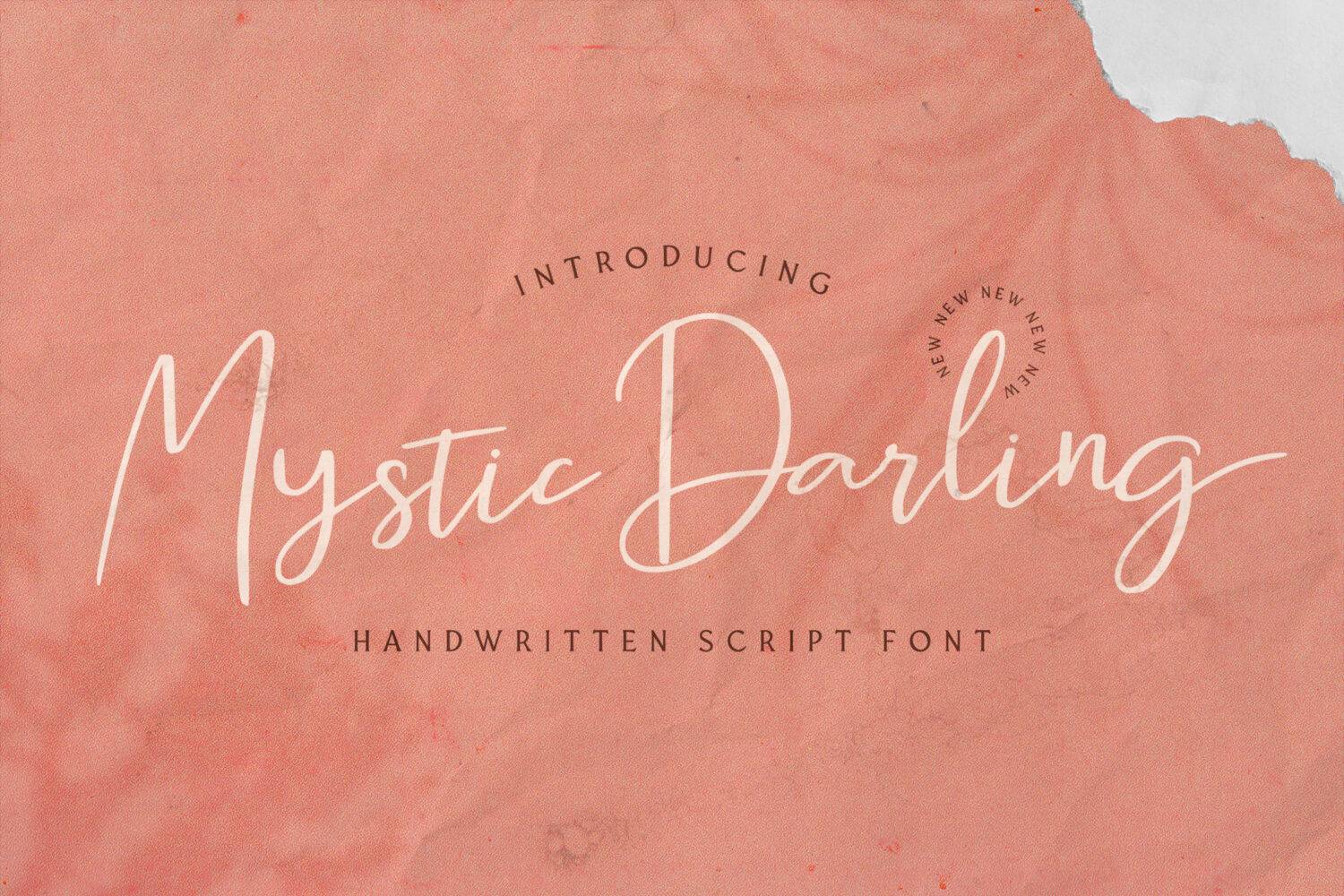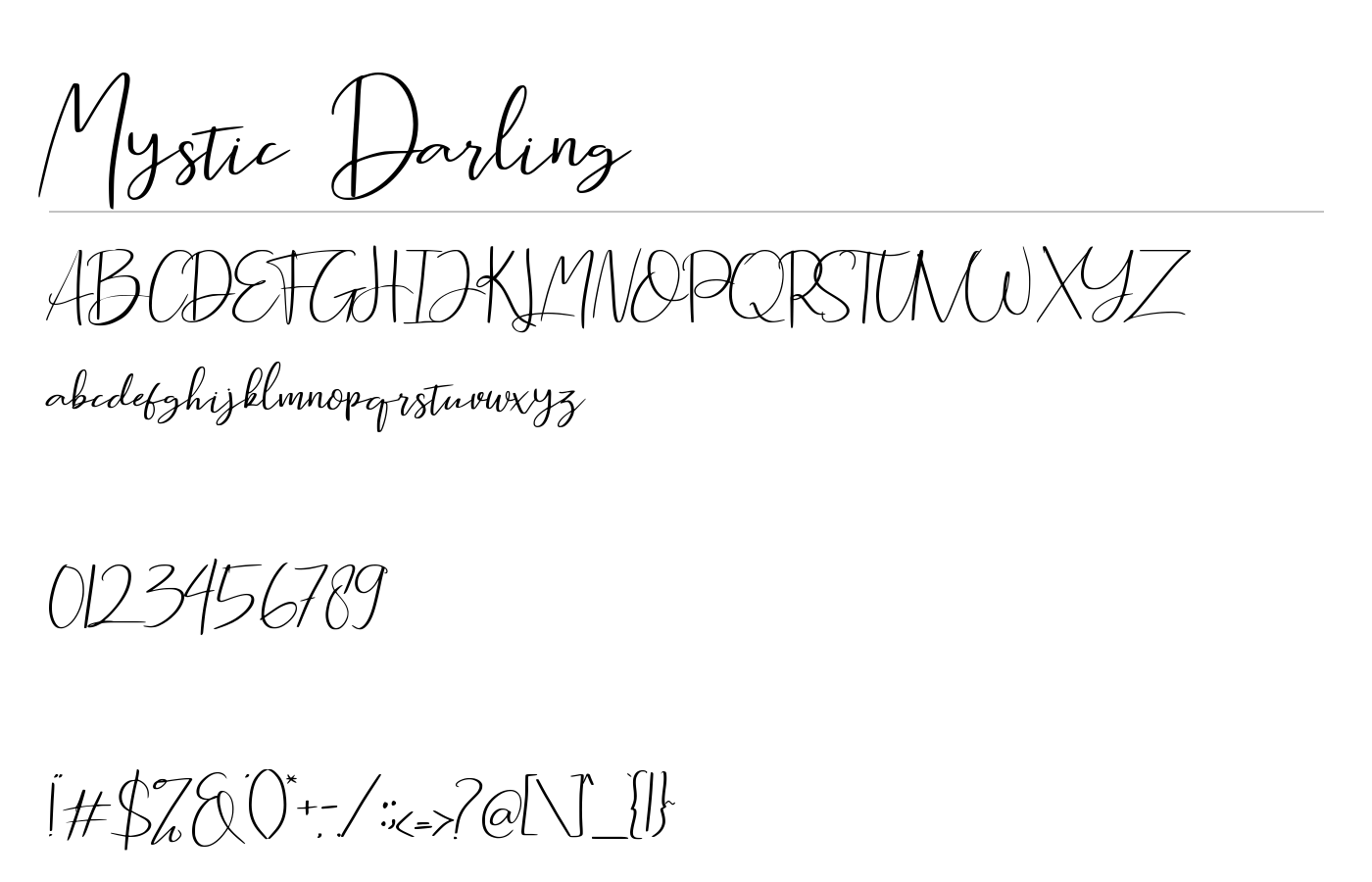
Mystic Darling is a delicate, hand-drawn script font with a whimsical and airy feel, featuring tall, narrow letterforms and graceful, flowing strokes. Its fine lines and playful curls convey a romantic and elegant personality, making it ideal for invitations, branding, and creative projects that seek a personal, charming touch. This font works especially well in designs aiming for a modern yet heartfelt aesthetic, perfect for fashion, lifestyle, and artistic uses.
Mystic Darling Font
About Mystic Darling Font